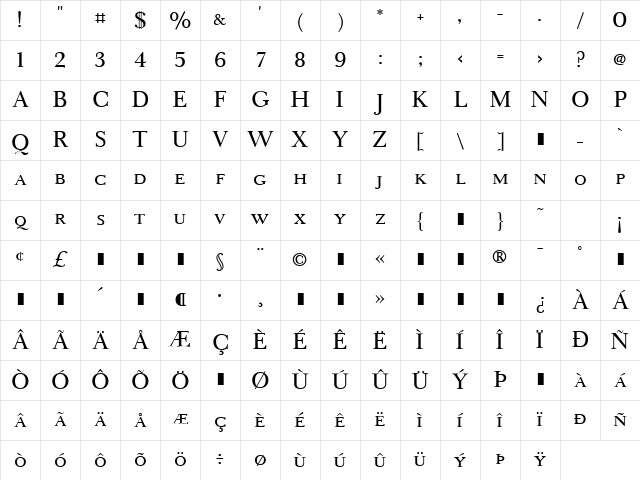
Baskerville1757 SmallCaps Free Font
Baskerville1757 SmallCaps
Style: SmallCaps
Design Context for Baskerville1757
Baskerville1757 is a composed and adaptable typeface that performs quietly and consistently across a wide range of design contexts.